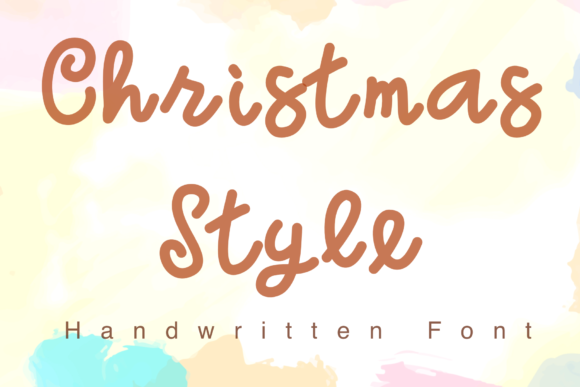
Unwrapping the Magic of the Season: Christmas Style Font
As the snowflakes start to fall and the fireplace crackles to life, we’re reminded of the joy and warmth that comes with the holiday season. For many of us, this time of year is a moment to let our creativity shine – whether it’s crafting handmade gifts, decorating the tree, or writing heartfelt letters to loved ones. It’s a time to add a personal touch to our holiday traditions, and that’s where the right font can make all the difference.
Enter the enchanting Christmas Style Font, a sweet and delicate handwritten font that’s perfect for adding a romantic touch to your holiday projects. Whether you’re designing greeting cards, gift tags, or even a festive website, this font is sure to bring a smile to your face and a sparkle to your designs.
- Unique Characteristics: The Christmas Style Font features a festive and playful design, with intricate details and ornaments that evoke a sense of holiday cheer.
Christmas Style Font Review
Overall, I found the Christmas Style Font to be a fun and playful addition to any holiday design project. ✨ The font’s whimsical feel and bold lines make it perfect for creating festive and eye-catching graphics. I particularly enjoy the font’s versatility, as it can be used for both digital and print materials.
Here are some specific features that I think work well:
- ✨ Unique and creative design elements that add a touch of holiday magic to any project
- ✨ Bold and easy-to-read, making it perfect for signage, posters, and other promotional materials
- ✨ Highly customizable, allowing designers to easily adjust the font to fit their specific needs
However, I do have a few concerns:
- ⚠️ Limited font sizes and weights available, which may limit its use in certain design applications
- ⚠️ May not be suitable for all types of holiday designs, such as more subdued or traditional themes
Overall, I think the Christmas Style Font is a great addition to any designer’s holiday arsenal, but it may not be the best fit for every project. With a little creativity and experimentation, however, it can add a lot of fun and personality to your designs.
To get the most out of the Christmas Style Font, use it in conjunction with other festive design elements, such as holly, snowflakes, or red and green colors. Experiment with different font sizes and styles to create a visually appealing design.